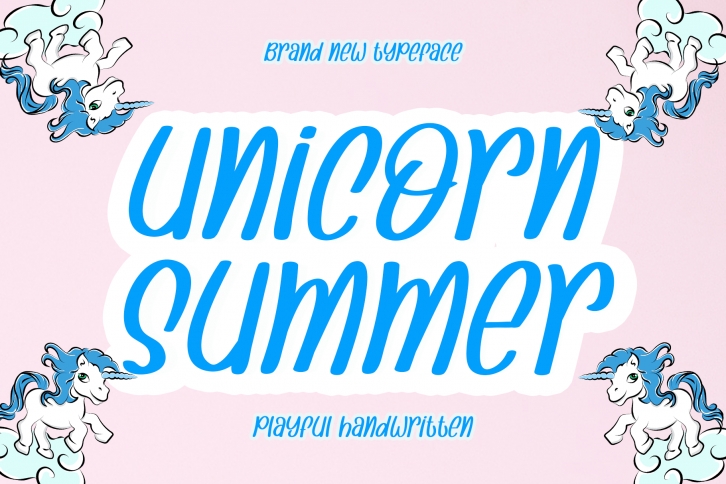
Unicorn Summer is a modern, fresh and whimsical handwritten font. Neat and a little bit quirky, this font is the perfect fit for all of your logos, branding, social media, and crafty DIY projects.